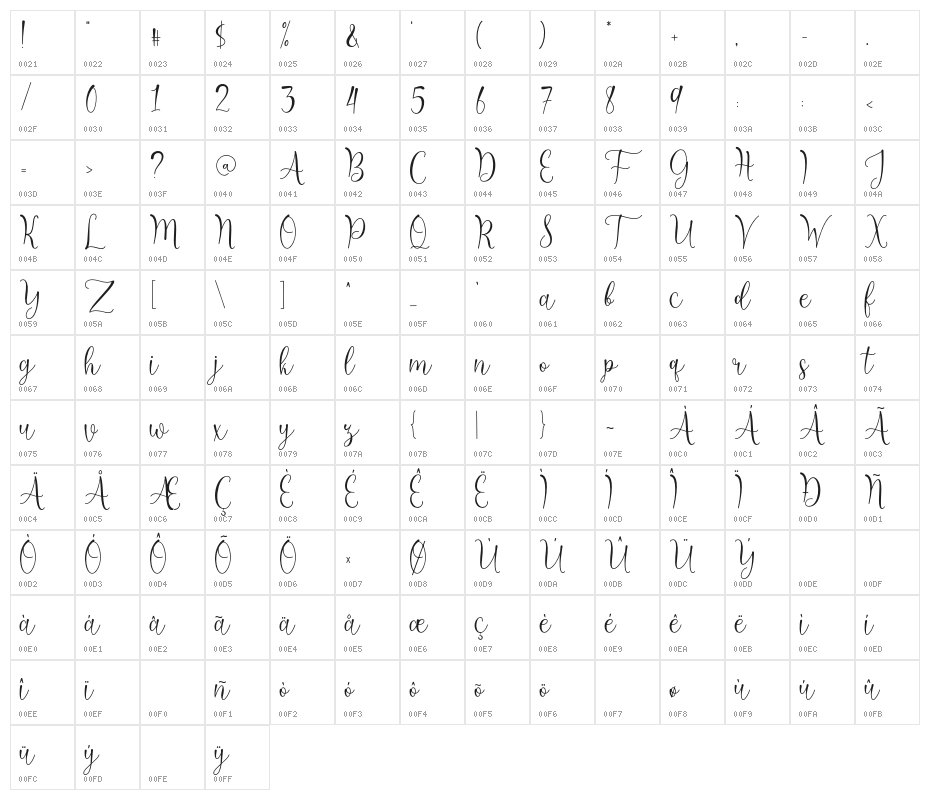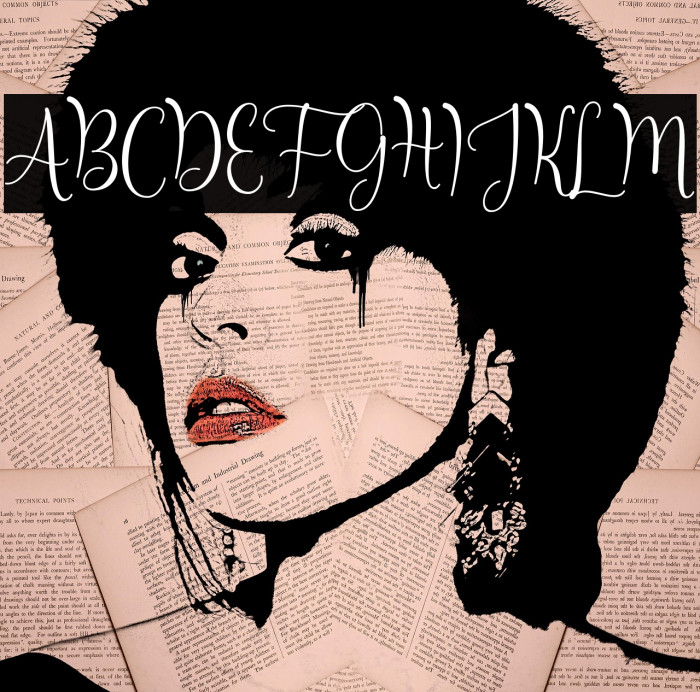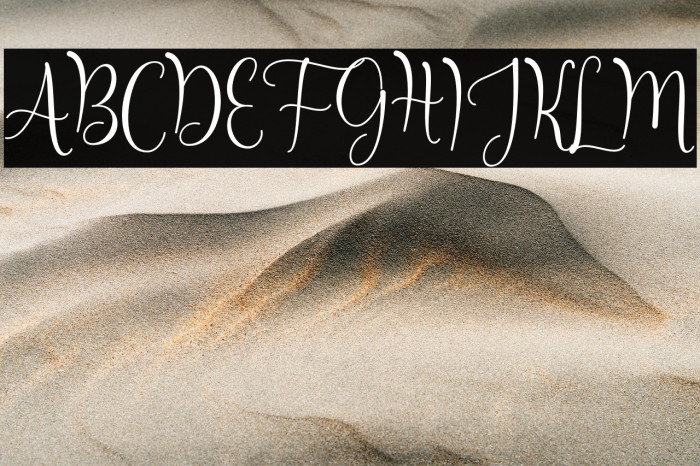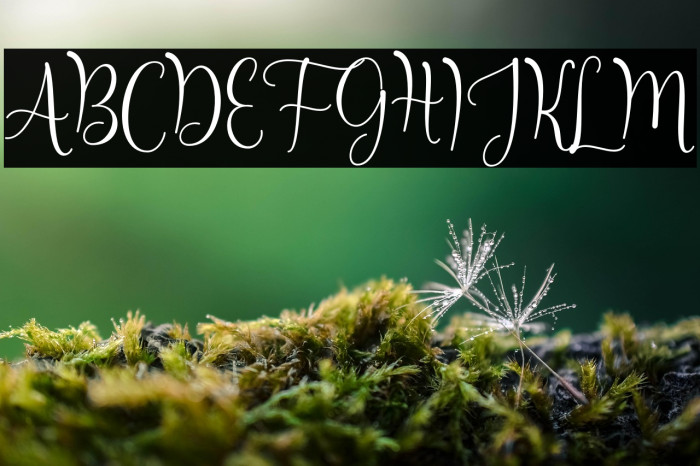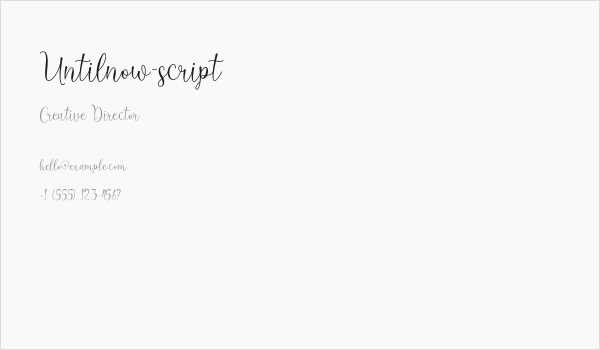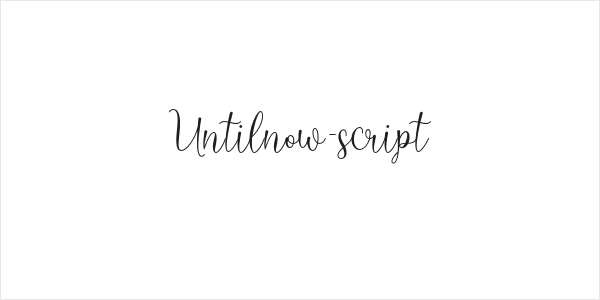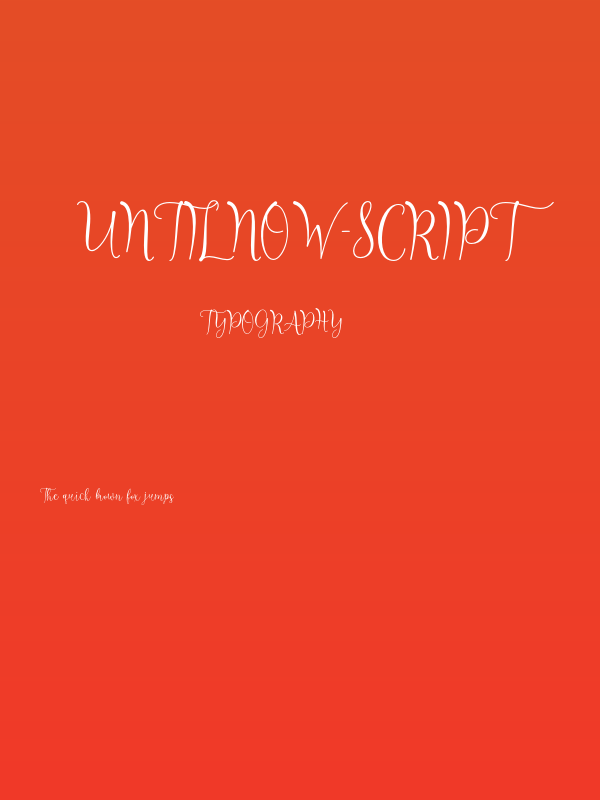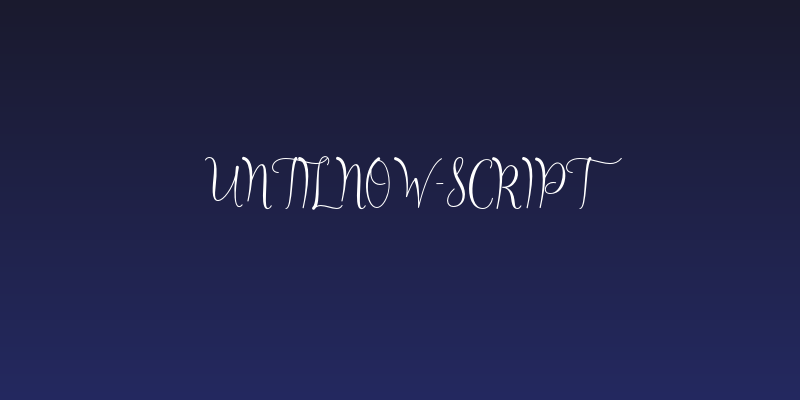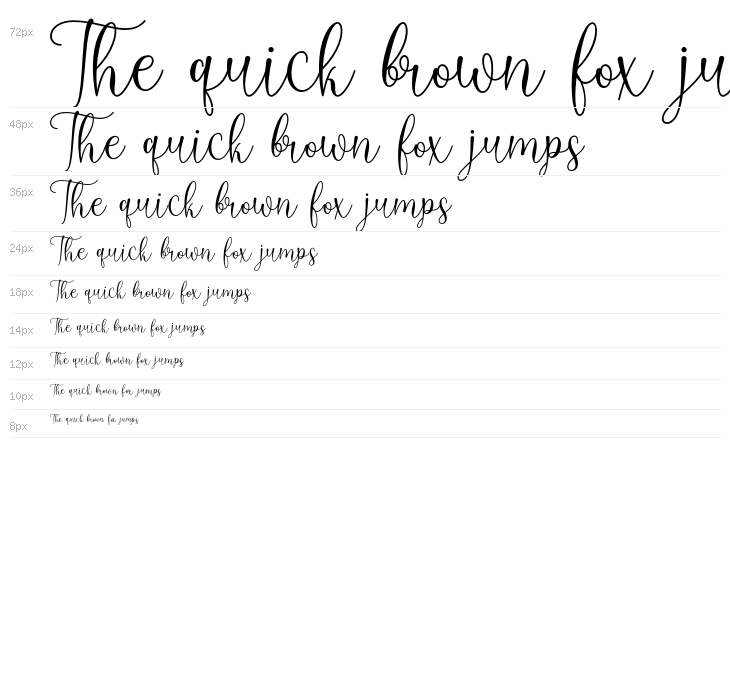
Untilnow-script Font
Untilnow-script Description
This font exudes a playful and elegant script style, characterized by its fluid and connected letterforms. The uppercase letters are tall and slender, with a graceful flow that adds a touch of sophistication. The lowercase letters maintain a consistent rhythm, featuring smooth curves and loops that enhance readability. Numbers and special characters are designed with the same attention to detail, ensuring a cohesive look across all elements. The overall appearance is both modern and timeless, making it suitable for a variety of design applications.
| Overall Style | Elegant, Modern |
| Use Case | Headlines, Invitations, Branding |
| Proposed Projects | Ideal for wedding invitations, greeting cards, branding, and elegant packaging designs. |